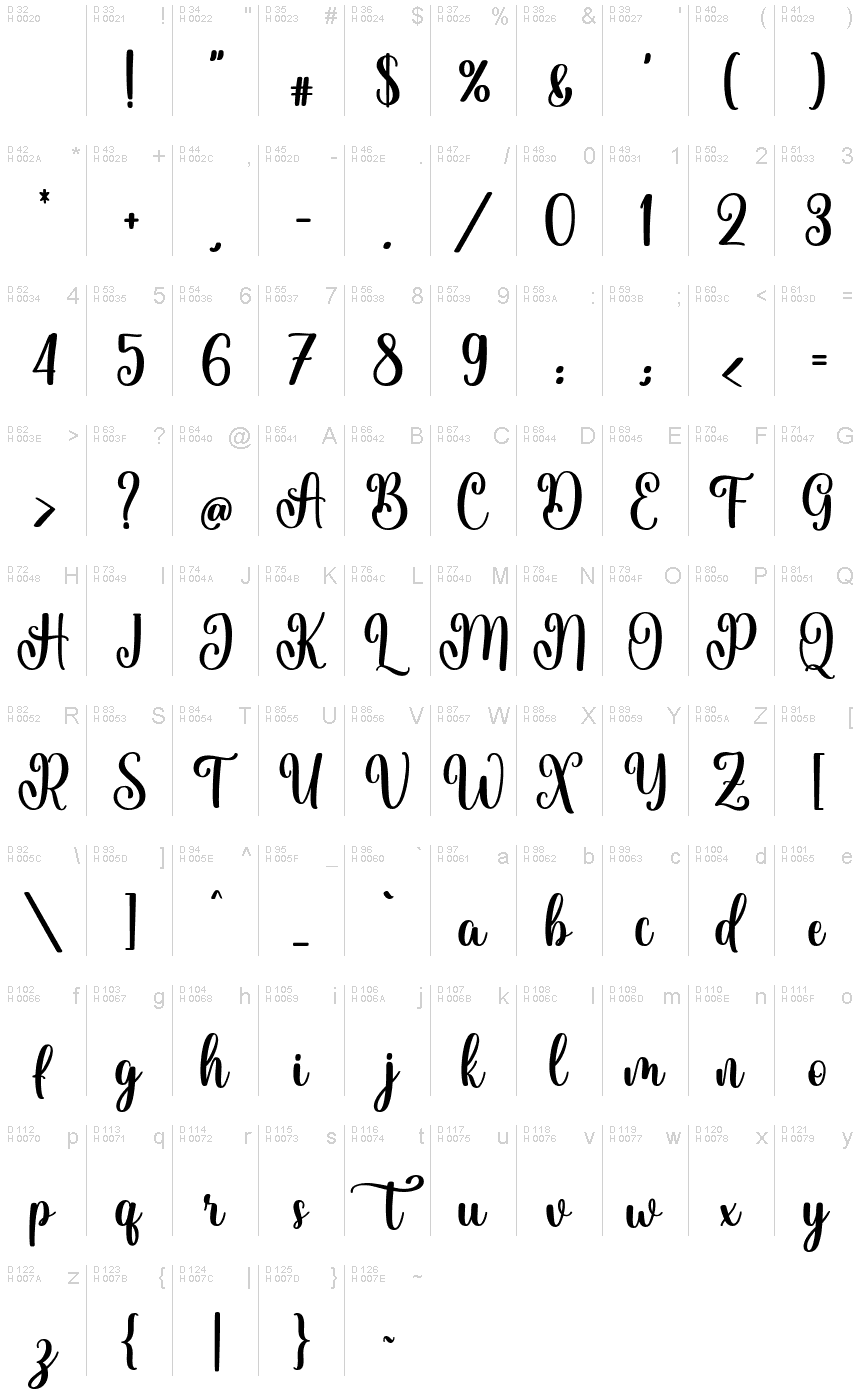
Hello Anita_DEMO
Say hello to the stunning Hello Anita font by Makashi! This beautiful calligraphy typeface is perfect for adding a touch of elegance and sophistication to your next project. With its semi-bold weight, it's an ideal choice for both headings and body text, making it a versatile addition to any designer's toolkit. Use it in wedding invitations, branding materials, or even as a signature font for your personal blog. Its flowing lines and graceful curves will surely impress anyone who lays eyes on it. Don't miss out on the chance to elevate your design with the charming Hello Anita font!